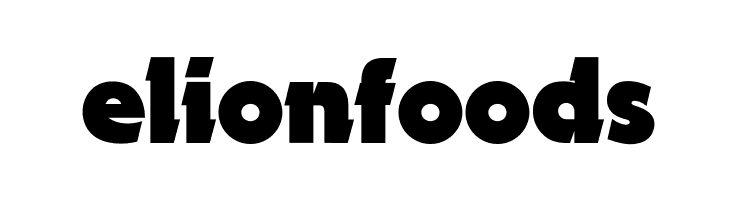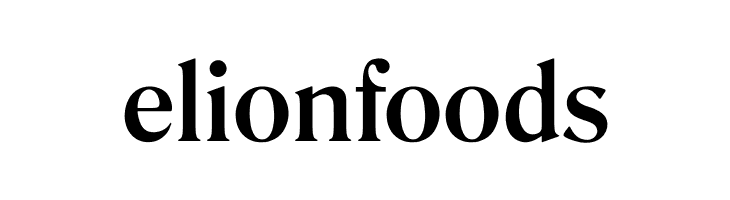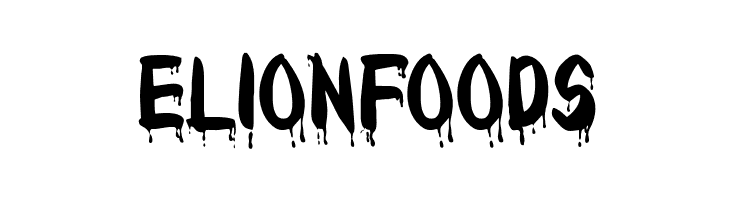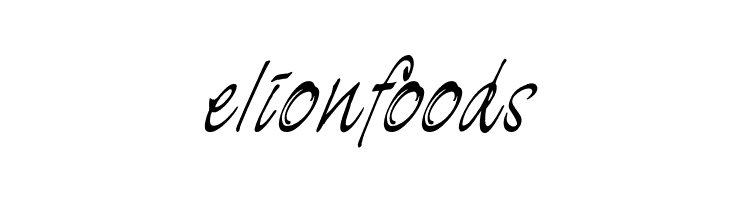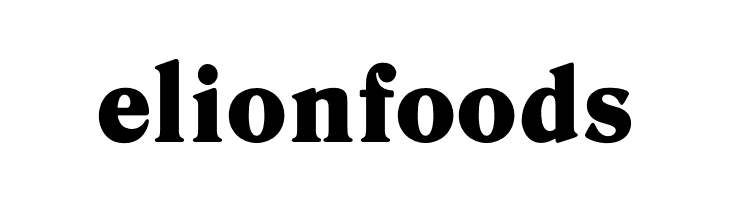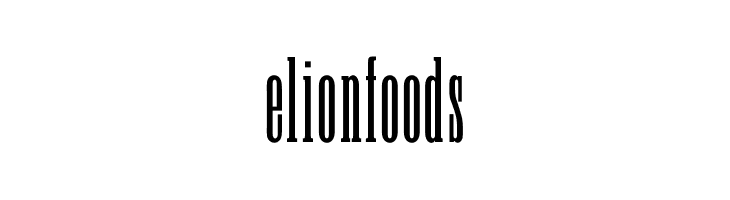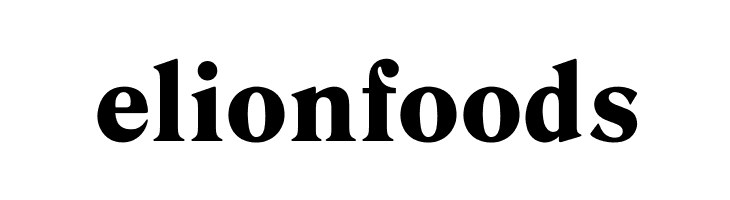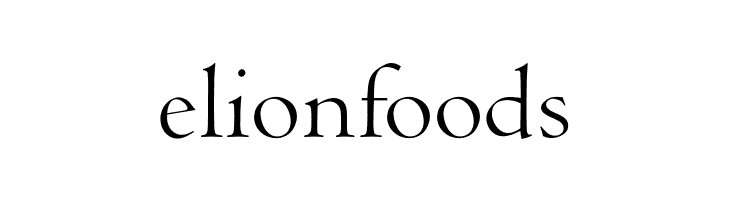
A classic serif font with elegant, thin strokes and a timeless appeal.
An elegant serif italic font with a refined and sophisticated style.
An elegant serif font with high contrast and refined, elongated serifs.
A bold serif font with strong strokes and elegant serifs, perfect for impactful headlines.
A bold, high-contrast serif typeface with strong, impactful strokes.
A classic serif font with bold, elegant curves and excellent readability.
A modern sans-serif font with balanced proportions and smooth curves.
A classic serif font with elegant strokes and moderate contrast, perfect for timeless designs.
A bold, classic serif typeface with pronounced serifs and elegant contrast.
An elegant serif font with a classic italic style and high contrast.
A bold, classic serif font with elegant proportions and strong serifs.
An elegant italic typeface with flowing lines and moderate contrast.
A classic serif font with elegant strokes and balanced proportions.
An elegant, Art Deco-inspired font with geometric shapes and clean lines.
A classic serif font with elegant, flowing lines and medium contrast.
A classic serif font with elegant, slightly italicized lowercase letters.
A modern sans-serif font with clean lines and geometric shapes.
A modern, clean typeface with balanced structure and excellent readability.
An elegant serif italic font with graceful curves and refined strokes.
A classic serif font with a semi-bold weight, combining elegance and readability.
A classic serif font with sharp serifs and high contrast, perfect for elegant designs.
A modern, geometric font with consistent stroke width and clean lines.
A bold and dynamic font with a strong, authoritative presence.
A bold, elegant script font with flowing, cursive strokes and high contrast.
A refined and elegant script font with flowing, connected characters.
A modern serif typeface with high contrast and elegant, refined serifs.
A high-contrast serif font with elegant, sharp serifs and refined details.
A geometric, modern font with thin strokes and a clean, technical appearance.
A bold, slanted font with rounded characters and a dynamic, energetic style.
A bold, high-contrast font with tall, narrow characters.
A bold, dripping font with a spooky, horror-themed aesthetic.
A dynamic script font with fluid, cursive letterforms and a handwritten feel.
A bold, vintage serif font with rounded serifs and a classic style.
A bold, impactful font with thick strokes and a strong presence.
A bold, geometric font with strong, impactful letterforms.